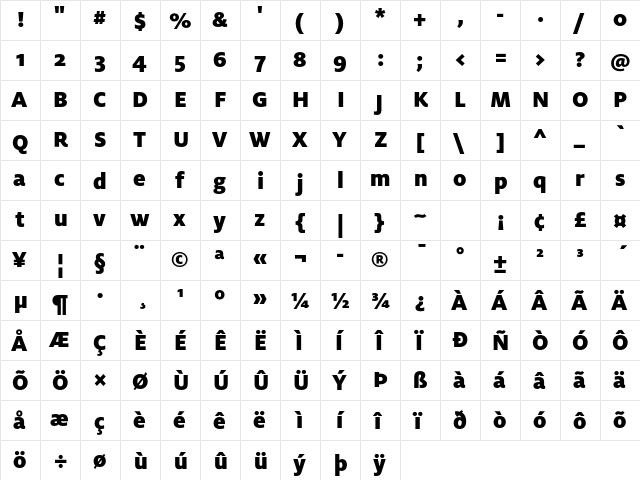
MiloOT-Black Regular
| Foundry | FSI Fonts und Software GmbH |
| Designer | Mike Abbink |
Design Context for MiloOT-Black Typeface
MiloOT-Black takes a measured approach to typography — its balanced proportions and neutral character make it a reliable workhorse for both digital and print work.